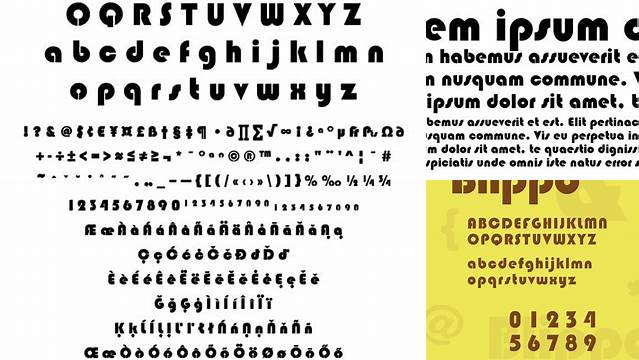
Hey everyone! Today, we're diving headfirst into the awesome world of fonts, specifically focusing on the ever-popular Blippo Font and how you can get a free download to spice up your designs. If you're a designer, a student, or just someone who loves to dabble in creative projects, you've probably stumbled upon Blippo. It's a quirky, friendly font that's perfect for everything from eye-catching headlines to playful graphics. So, buckle up as we explore everything you need to know about the Blippo font free download, its history, usage, and where to snag it safely. Let's get started, shall we?
H2: What is the Blippo Font & Why is it So Popular?
Alright, let's kick things off with a quick intro to the star of the show: Blippo Font. Designed by Joe Taylor, it was originally released by Letraset in 1970 and quickly became a hit. Its unique blend of rounded, almost bubble-like letterforms gives it a distinct and memorable look. Blippo Font isn't your typical, run-of-the-mill typeface. It's got personality! This font is like that friend who always brings the good vibes. Its friendly and approachable aesthetic makes it a fantastic choice for projects aimed at a younger audience or those that want to convey a sense of fun and playfulness. This is one of the reasons Blippo Font has remained so popular. Whether you're designing a poster, a website, or a social media graphic, Blippo Font is versatile enough to fit the bill. Its legibility is also a factor in its widespread use, as it is easily readable even at smaller sizes, making it ideal for both headlines and body text in some cases. The font's availability across various platforms and its inclusion in many design software packages make it even more accessible to users. The history of the font and its continuous use in various creative projects is proof of its success. The font's visual characteristics add to its appeal. Its unique shape makes it a suitable choice for designs that demand attention and creativity. Moreover, Blippo Font is still used in various forms, from logos to packaging designs. This continuous presence is a testament to the font's timeless design and its adaptability to the ever-changing creative world. Blippo Font is not just a font; it's a statement – a declaration of creativity and a willingness to embrace the unconventional. Its enduring popularity proves that a well-designed font can stand the test of time and remain relevant across generations. The font's characteristics, history, and continuous presence make it a popular choice in the design industry.
H3: Key Features and Characteristics of the Blippo Font
Let's zoom in and examine what makes Blippo Font tick. The defining features are its rounded, bubble-like letterforms. This gives it a soft, friendly appearance. The letters are almost perfectly circular, creating a sense of harmony and visual appeal. The font often has a high x-height, which means the lowercase letters are taller relative to the capital letters. This enhances its legibility, especially in smaller sizes. This trait adds to the font's readability, a key factor in its popularity. Another characteristic is the font's versatility. While it has a distinct style, Blippo Font works well in a variety of contexts. It can be used for headlines, logos, and even short blocks of text. This versatility is one of its biggest strengths. The font is often associated with a sense of playfulness and informality. It's a great choice for projects that aim to convey fun, creativity, and a youthful energy. The font's unique design also makes it suitable for creative applications, where it can be used to grab attention and create a memorable impression. Beyond its visual appeal, Blippo Font is also relatively easy to use. It is widely supported by most design software and operating systems, making it accessible to a broad range of users. The easy usability of the font is a bonus to its visual features. Its unique design and versatility combined make it a great choice for many design projects. All these aspects contribute to the appeal and wide-ranging use of this beloved typeface.